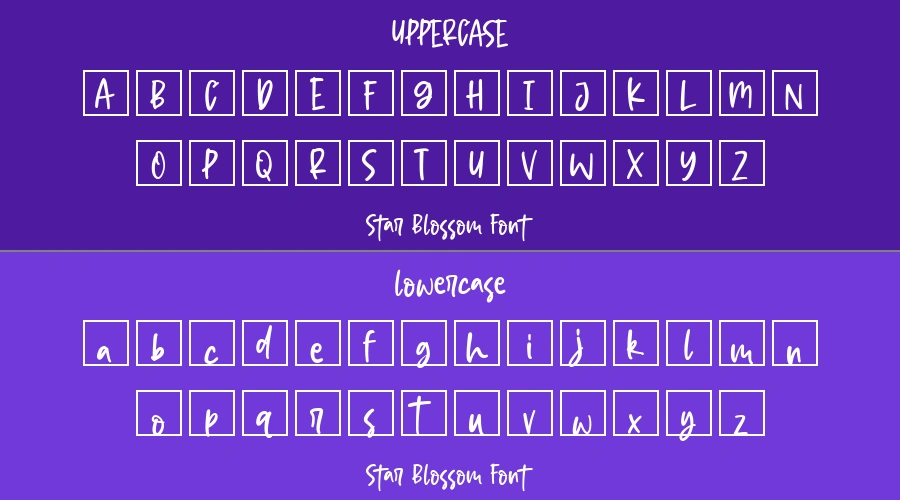
About Star Blossom Font
Designed with precision, Star Blossom Font merges harmonious shapes with versatility in every character. This versatility makes it particularly effective for poster titles, where clarity and creative potential directly impact communication quality. Each letterform demonstrates meticulous craftsmanship.
Technical excellence shines through elements like humanist proportions and connecting forms, enhancing typographic versatility. In colophons settings, Star Blossom Font proves its worth through superior small cap rendering. The thoughtful execution of x-height and educational suitability ensures professional results.